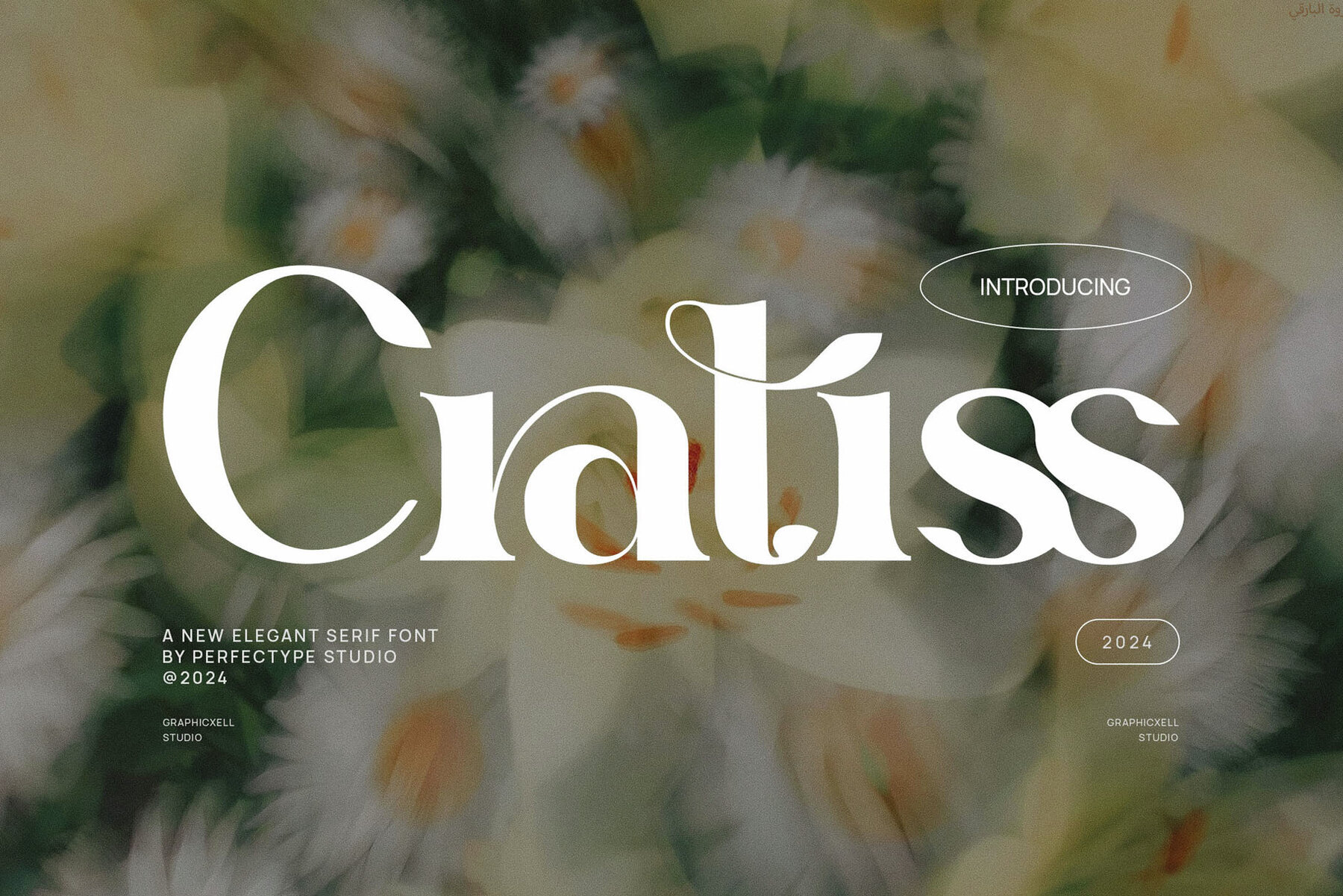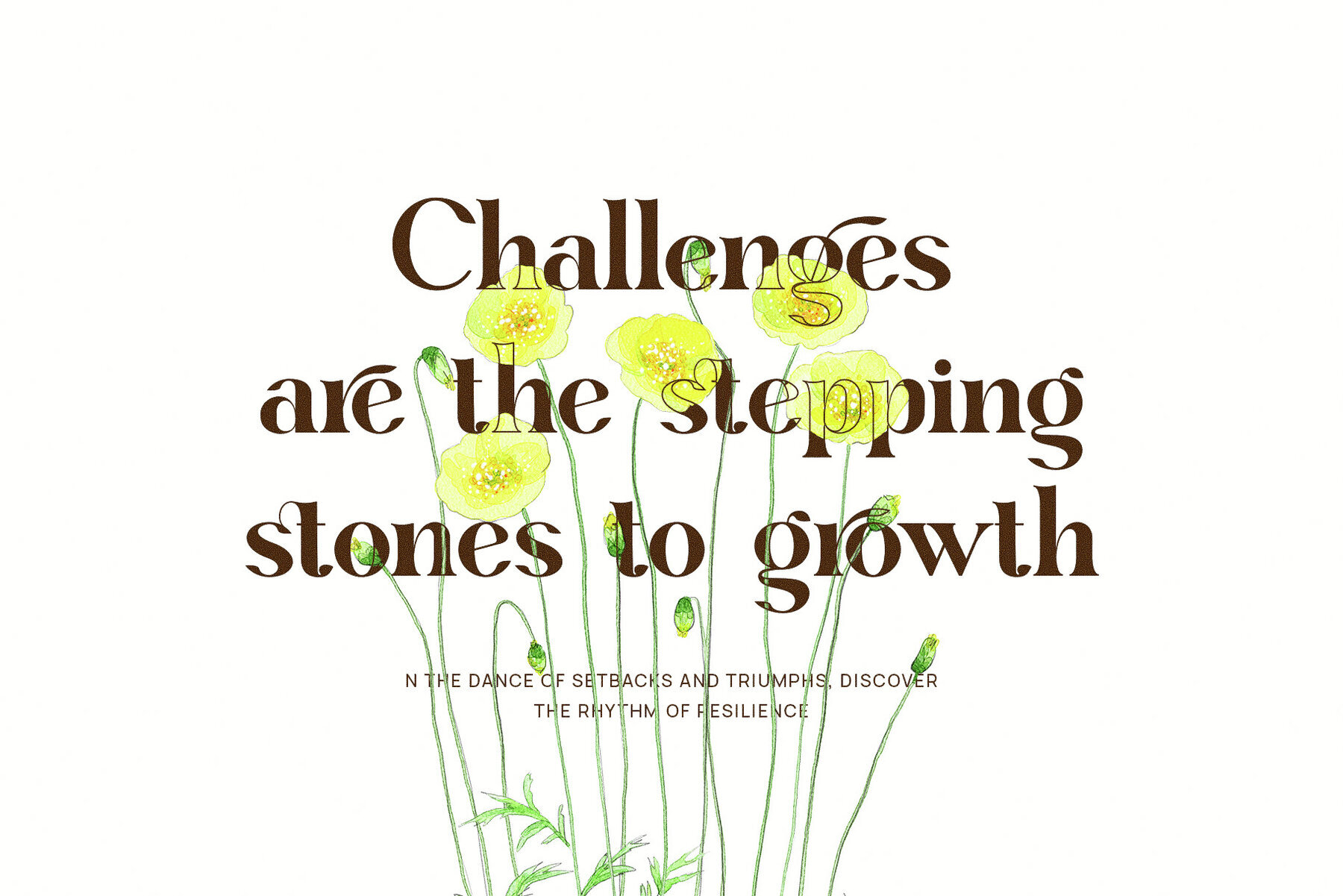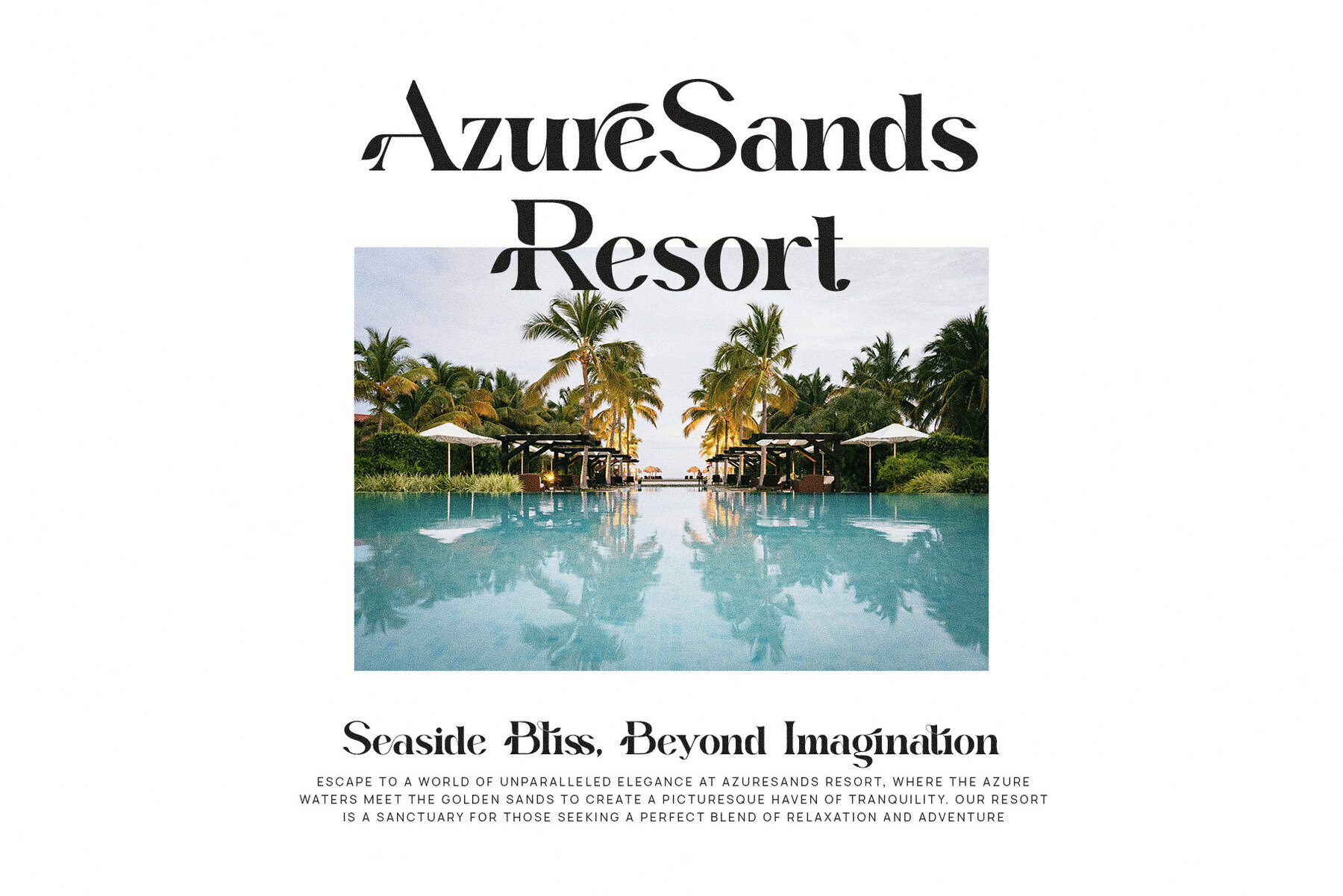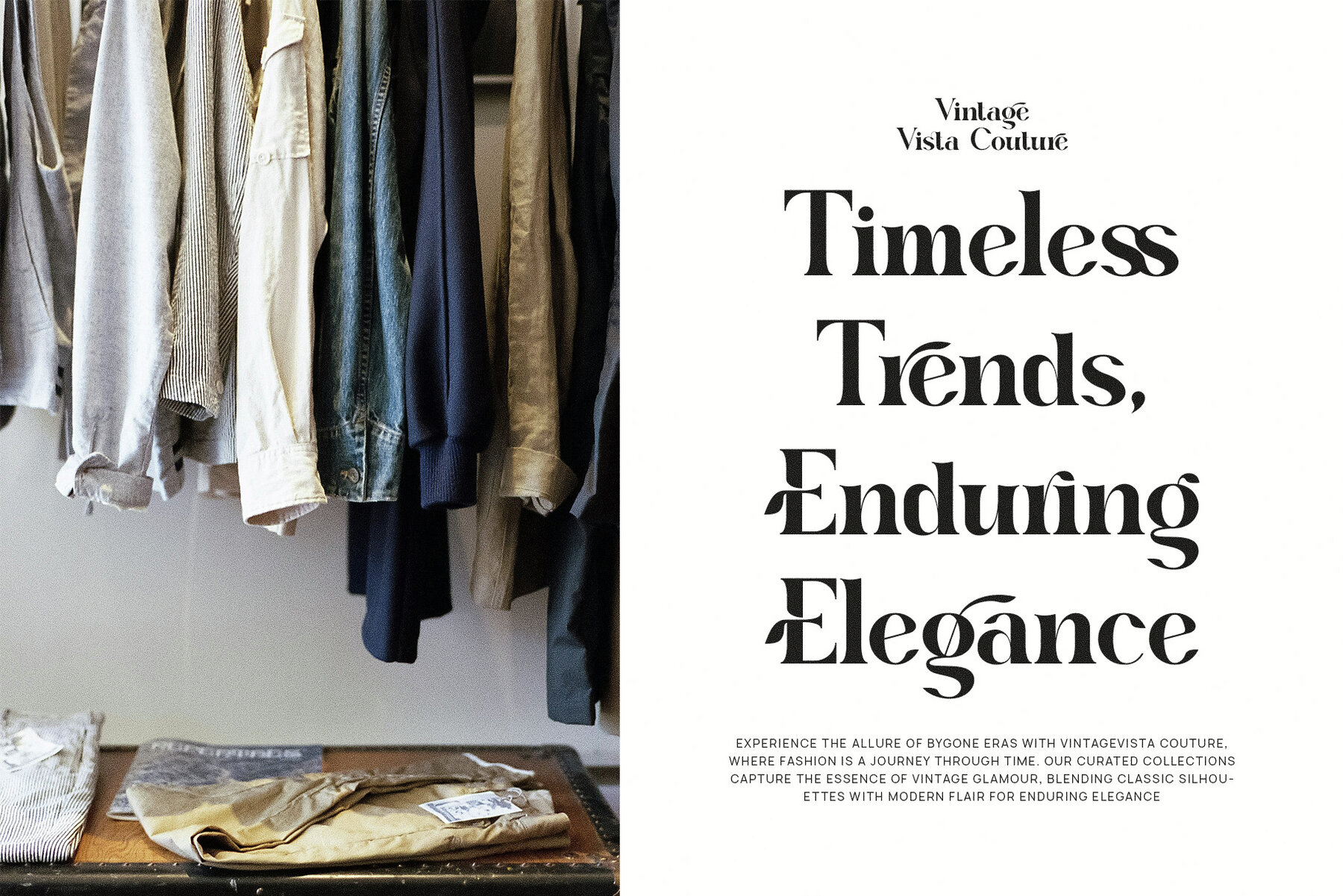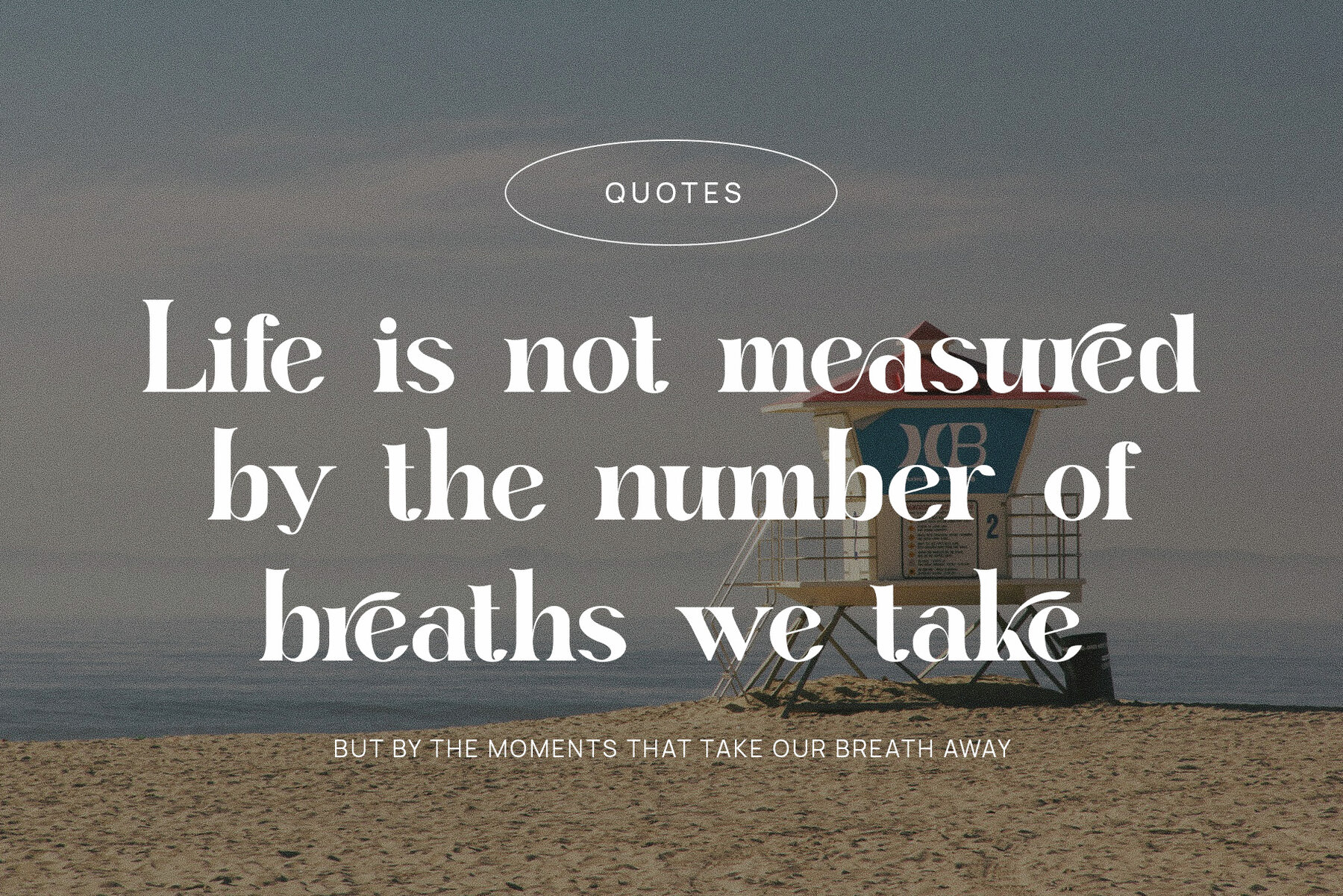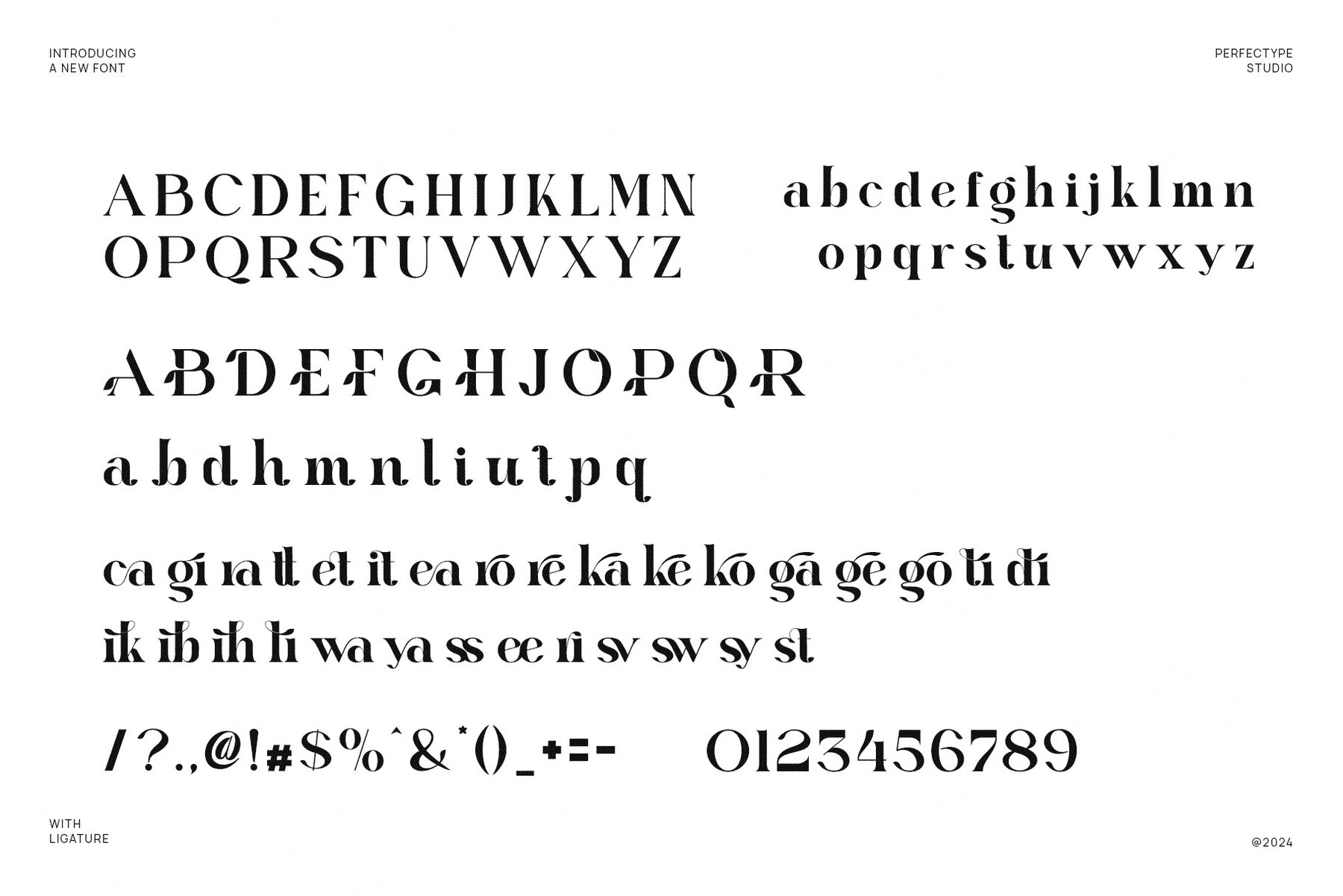
Cratiss
Cratiss is an elegant serif font, masterfully blending timeless elegance with a modern twist. Its meticulously crafted serifs, refined letterforms, and graceful curves impart a sense of luxury to any design. Featuring beautiful ligatures and alternate characters, Cratiss offers a unique level of customization, enabling designers to create seamless and stylish typography. This font is perfect for a wide range of high-end applications, including branding, logos, and luxury product designs.
Its elegant structure makes Cratiss an ideal choice for websites, magazine layouts, advertisements, and editorial content that demand refinement and sophistication. The font's versatility shines in both large display texts and smaller body copy, ensuring readability while maintaining a polished aesthetic. Particularly suited for industries focused on elegance—such as fashion, food, lifestyle, and boutique brands—Cratiss is perfect for crafting premium logos, upscale websites, or captivating promotional materials. Its graceful curves and carefully designed ligatures add fluidity and cohesion, making it an excellent choice for high-end branding that requires attention to detail.
With its exceptional design and refined beauty, Cratiss Elegant Serif Font is an essential tool for designers aiming to create memorable, sophisticated, and impactful designs. Whether for luxury product packaging or elegant magazine spreads, Cratiss adds a touch of elegance to any project with its perfect balance of modernity and timeless charm.